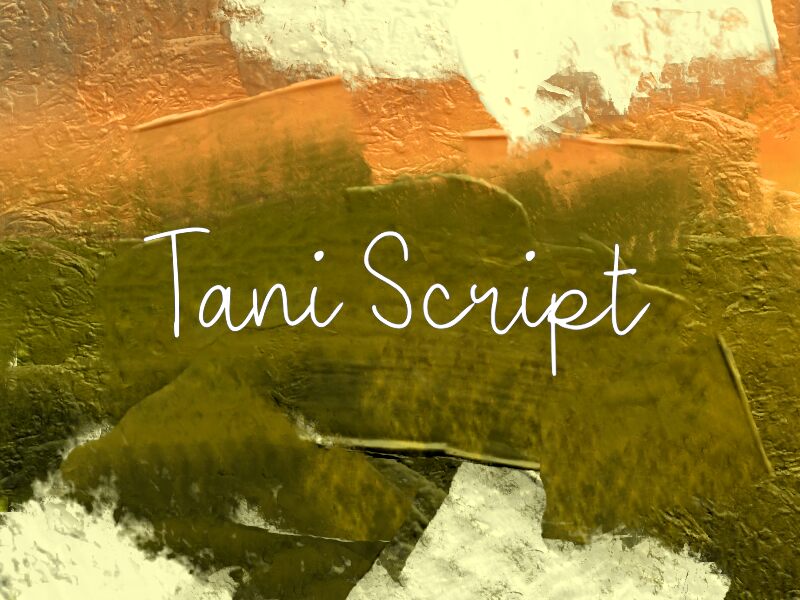
Tani Script font designed by wepfont.com is a free subtle handwritten font with unique and sophisticated appeal. Its characters are designed with a consistent line style that allows achieving a seamless and smooth look. Fine curves and pretty sharp line endings give this font a minimum level of exaggeration, making it delicate in its final outlook. A nice secondary embellishment is the straight line drawn across the bottom part of certain letters. This provides a nice exciting touch that balances the overall elegant and lively mood.
This font is perfectly suited for use in online branding like in Instagram accounts and websites, especially for those belonging to small businesses. It also fits very well into the humble marketing campaigns of dental clinics, artisanal shops, and beauty salons. Use it in print designs intended for packaging or publication. Posters, banners, magazines, and catalogues are the first things that come to mind. Finally, this font can be beautifully applied in invitations and cards.
Tani Script is a captivating free font that blends elegance with a modern touch. This font is perfect for creative projects, branding, and invitations, adding a unique flair to your designs. With its smooth lines and stylish curves, Tani Script stands out while remaining versatile for various applications.